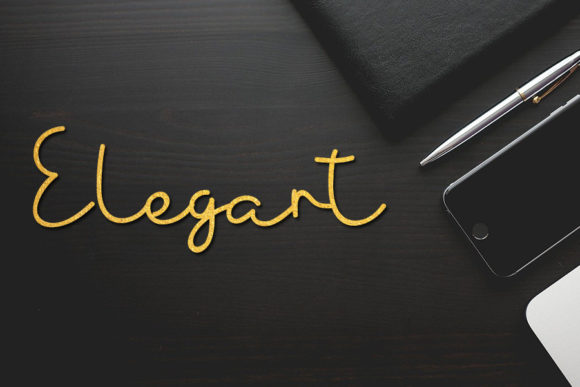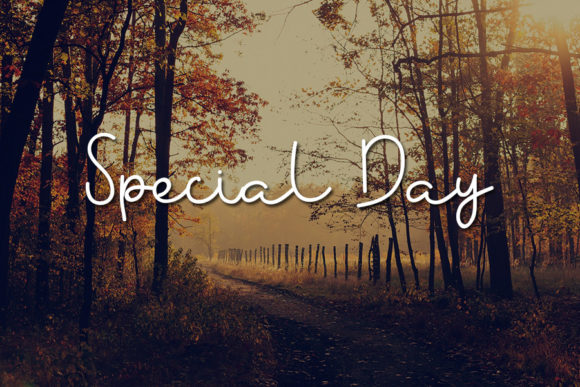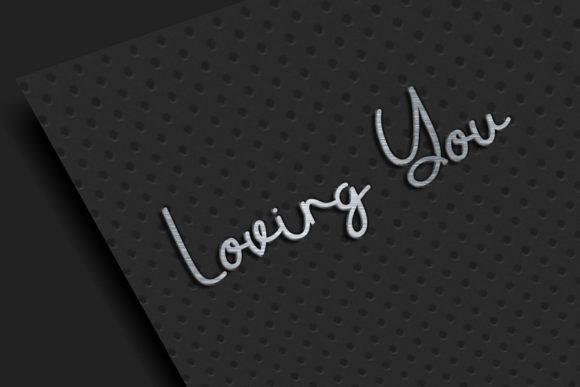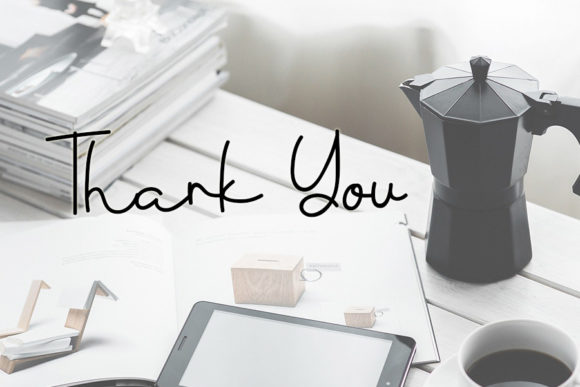
Father Day Font
About Father Day Font
Father Day is a stylish and delicate script font. It has a clean, thin and smooth vibe and it will be a hit for any design that you want to add it to.